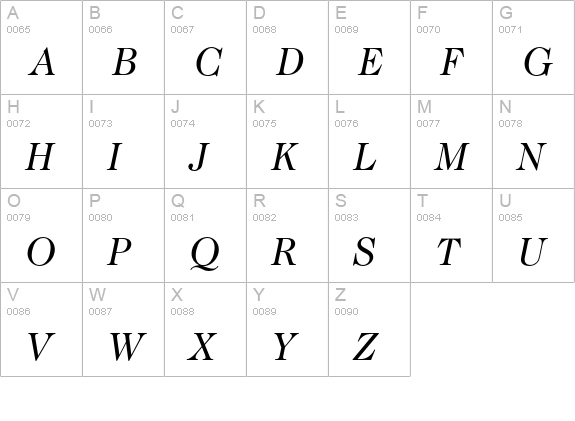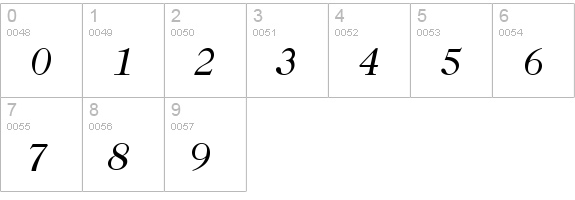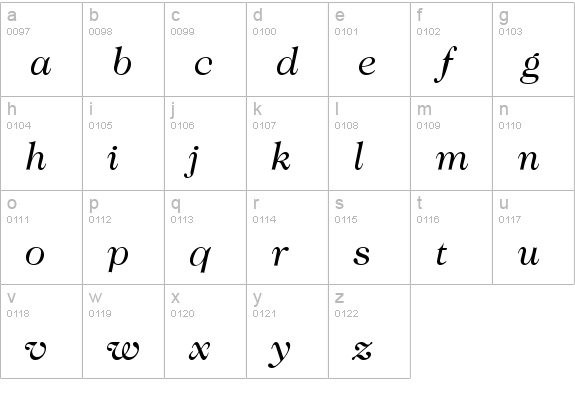
CaslonNo224EF-BookItalic is a classic and elegant font that exudes sophistication and style. Its slanted italic design adds a touch of flair and grace to any text, making it perfect for projects that require a touch of refinement. With its timeless appeal and versatility, this font is a great choice for various design applications, from invitations to branding. The beauty of CaslonNo224EF-BookItalic lies in its balance of traditional charm and modern elegance. Its delicate curves and subtle detailing make it a standout choice for those looking to make a statement with their typography. Whether used for print or digital designs, this font is sure to capture attention and leave a lasting impression. And the best part? CaslonNo224EF-BookItalic is available for free download at FontsMarket.com. So, whether you're a seasoned designer looking to add a new font to your collection or a newcomer exploring typography for the first time, you can easily access this stunning font and incorporate it into your projects with ease. Embrace the beauty and sophistication of CaslonNo224EF-BookItalic today, and elevate your designs to new heights.